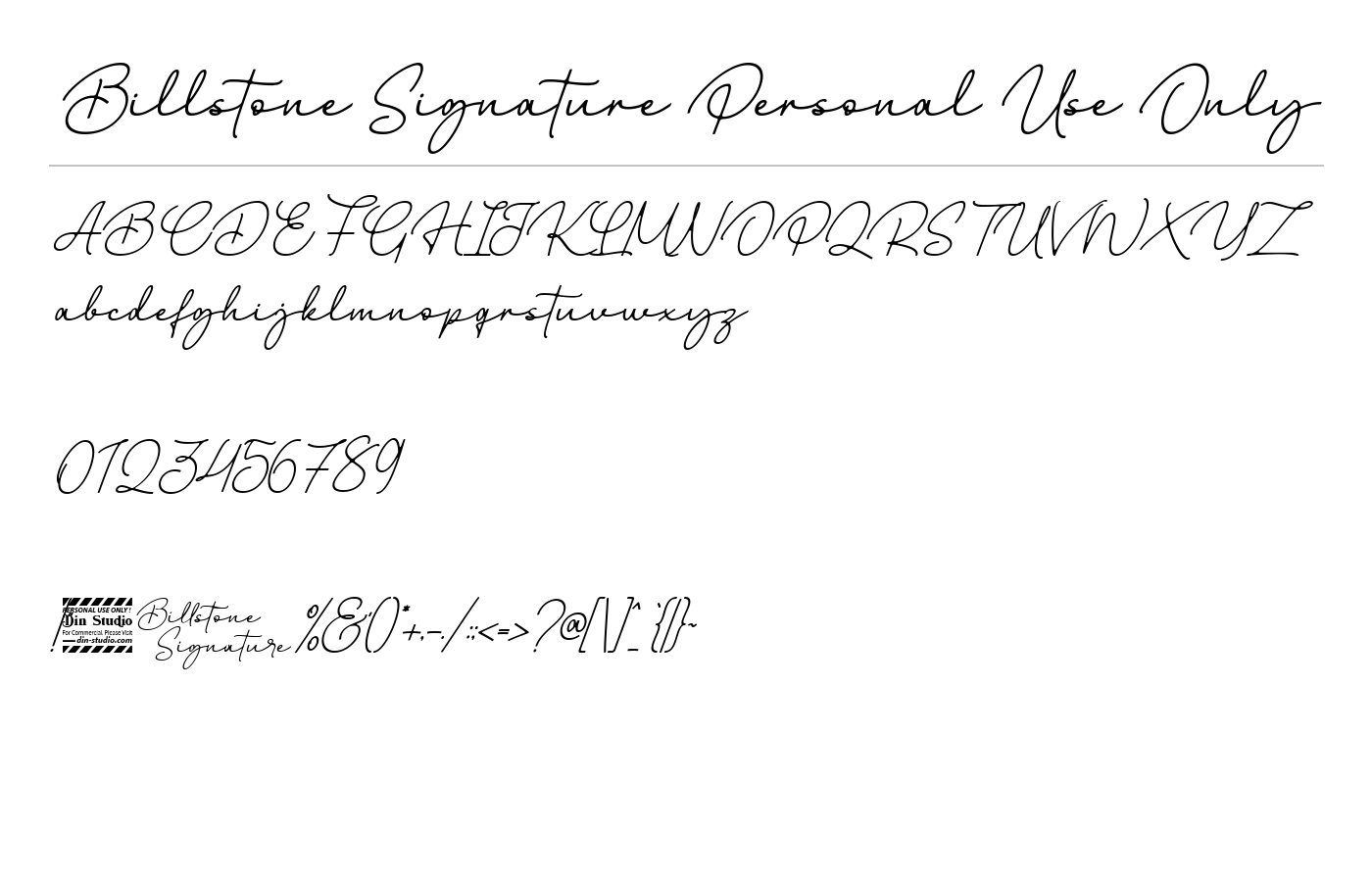
Billstone Signature PersonalUse is an elegant, handwritten script font with a delicate, flowing style that mimics natural, personal handwriting. Its thin strokes and graceful curves give it a stylish and sophisticated feel, making it ideal for luxury branding, invitations, and artistic projects where a personal touch is desired. This font works best for logos, headlines, and decorative text, adding a refined and intimate character to any design.
Billstone Signature PersonalUse Font
About Billstone Signature PersonalUse Font
| Font family | Billstone Signature PersonalUse Font |